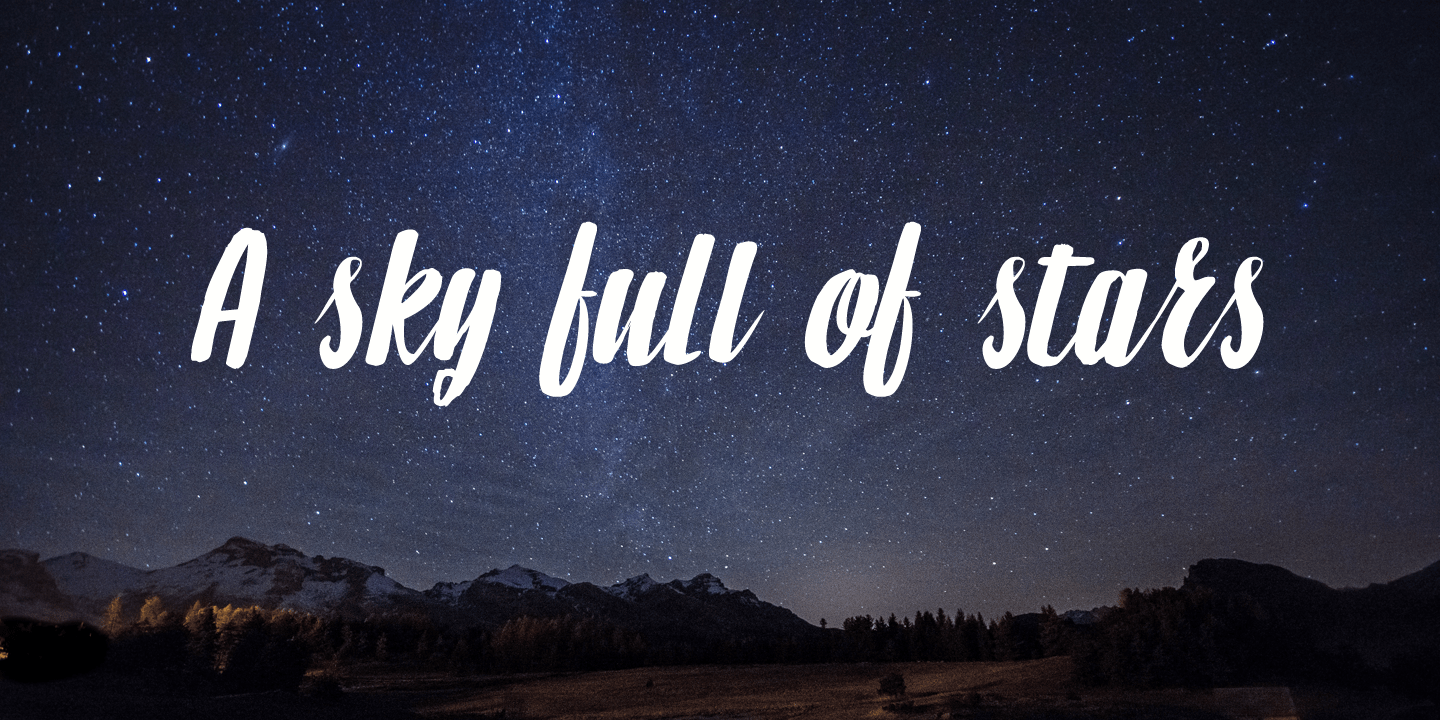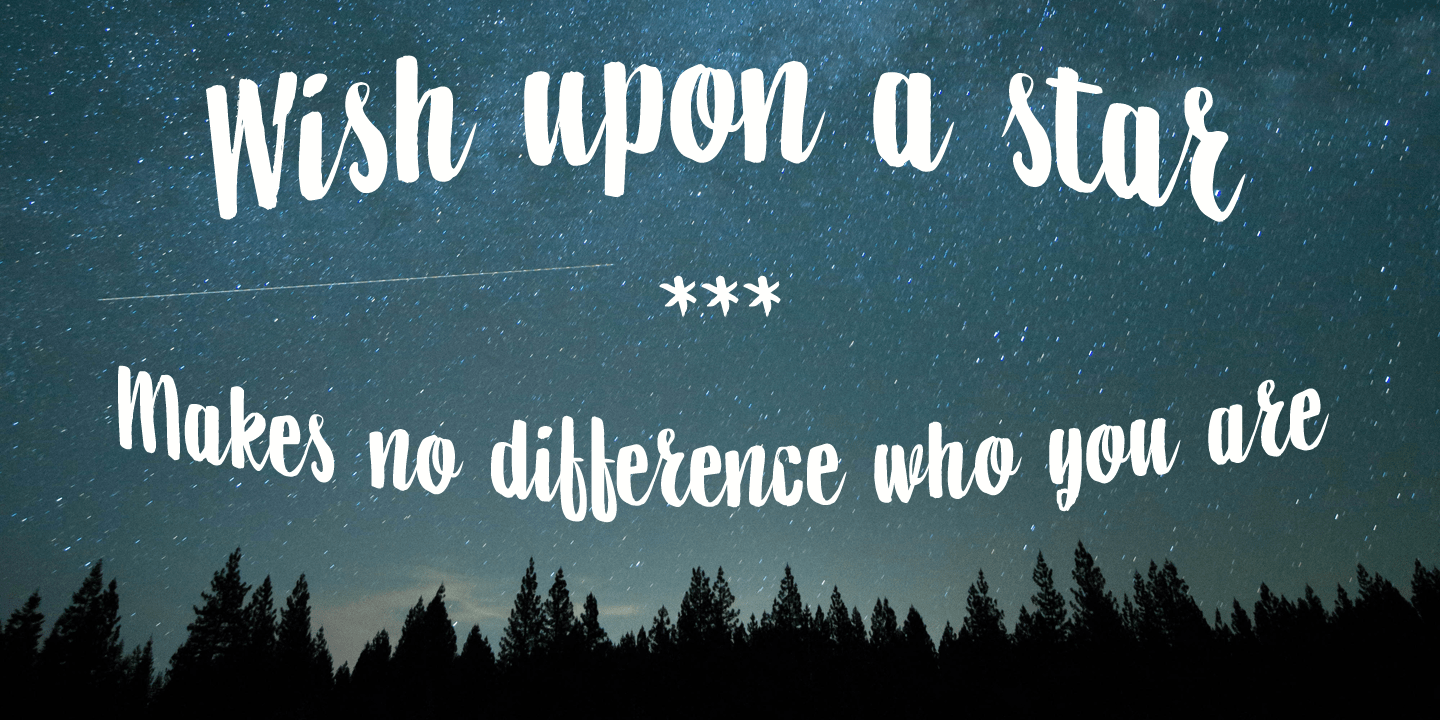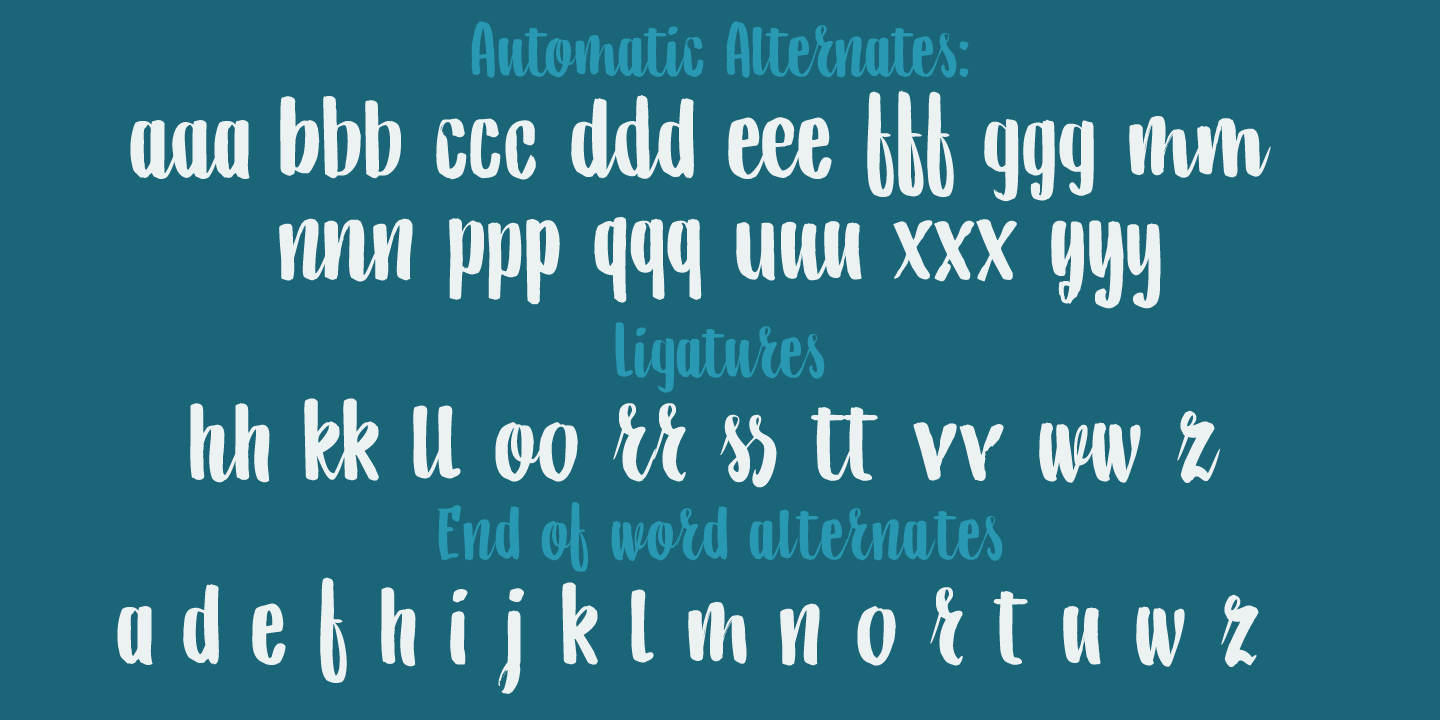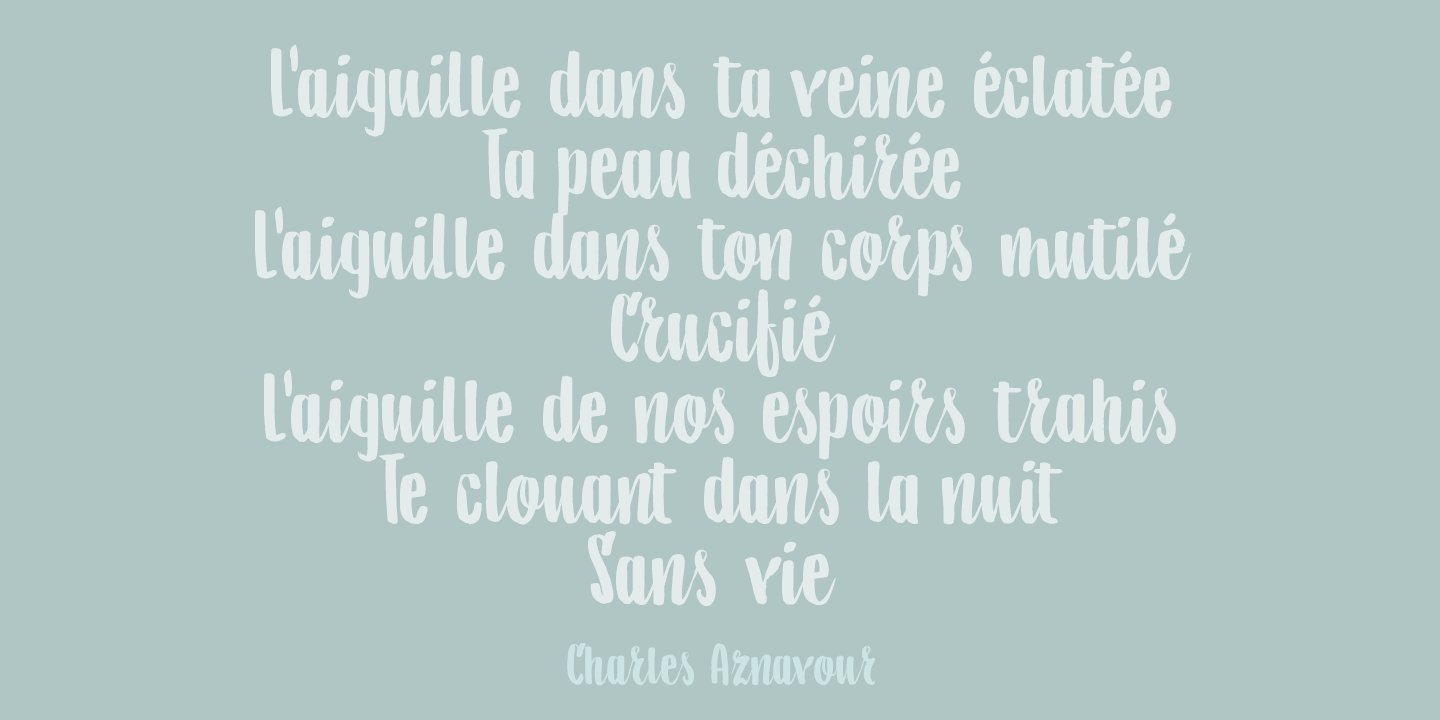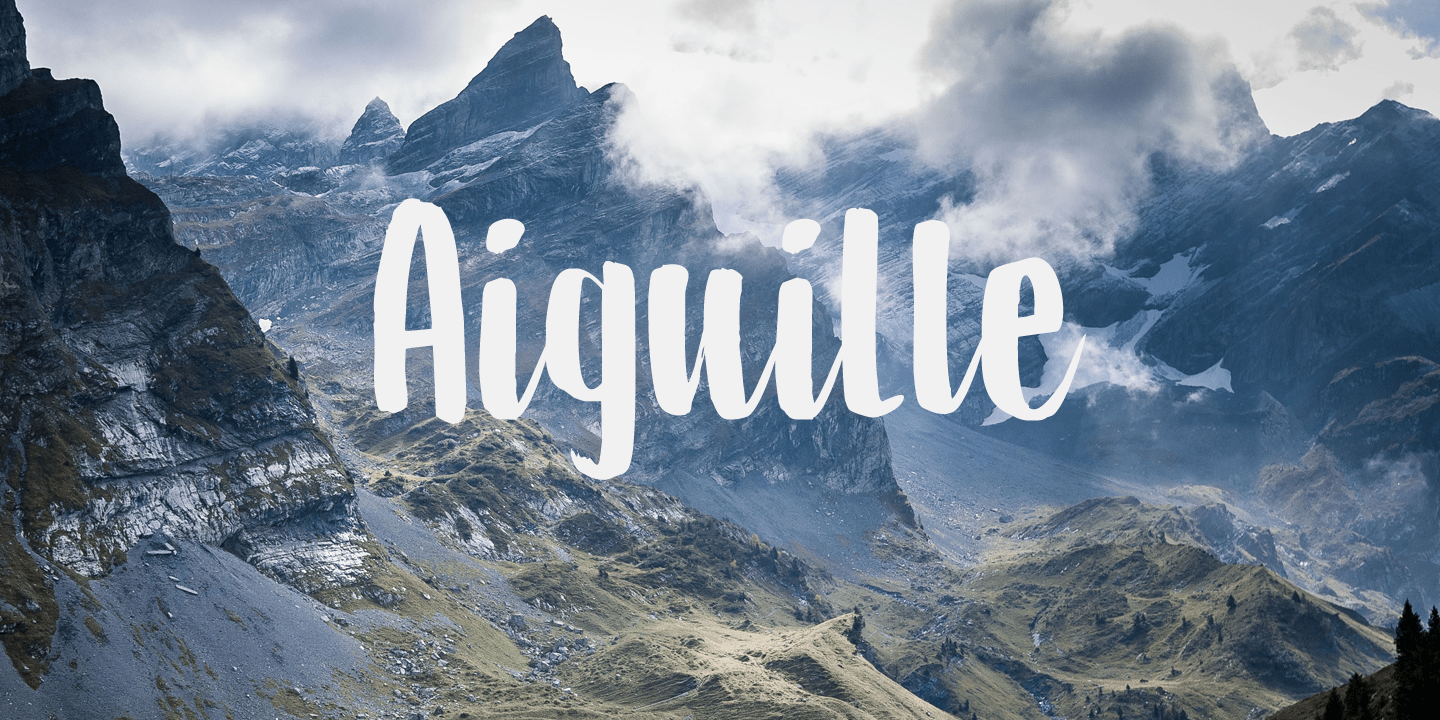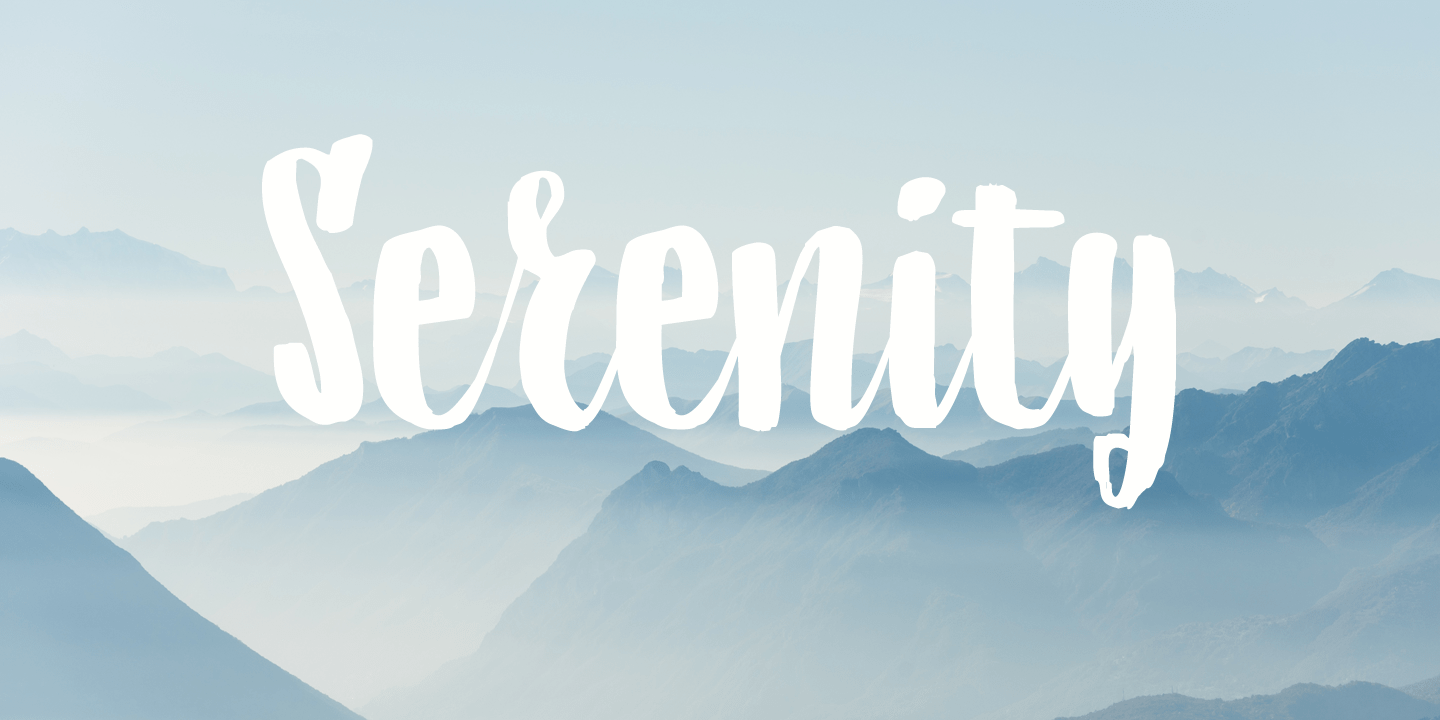
About Aiguille
An ?Aiguille? is a sharp pinnacle of rock in a mountain range. Aiguille font is a beautiful handwritten connected script font. I thought it was a good way to start off the new year! Aiguille comes with a whole bunch of alternate glyphs, ligatures and…